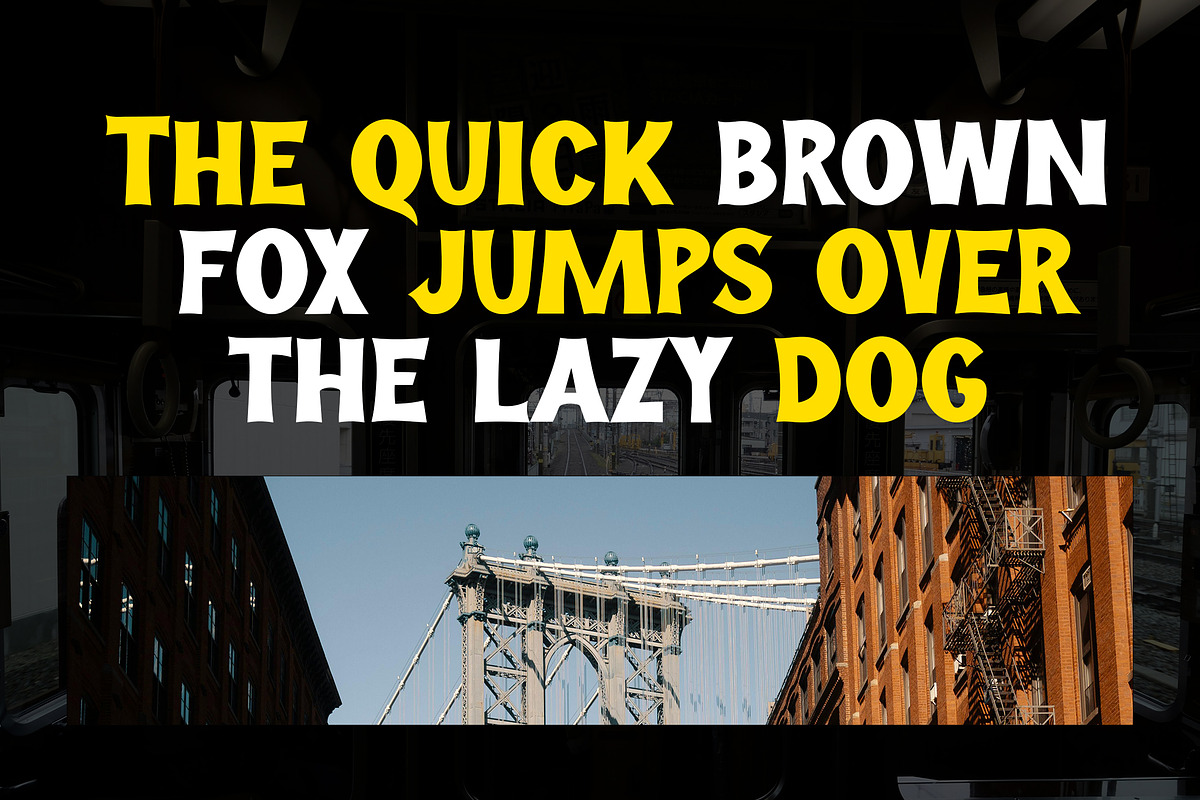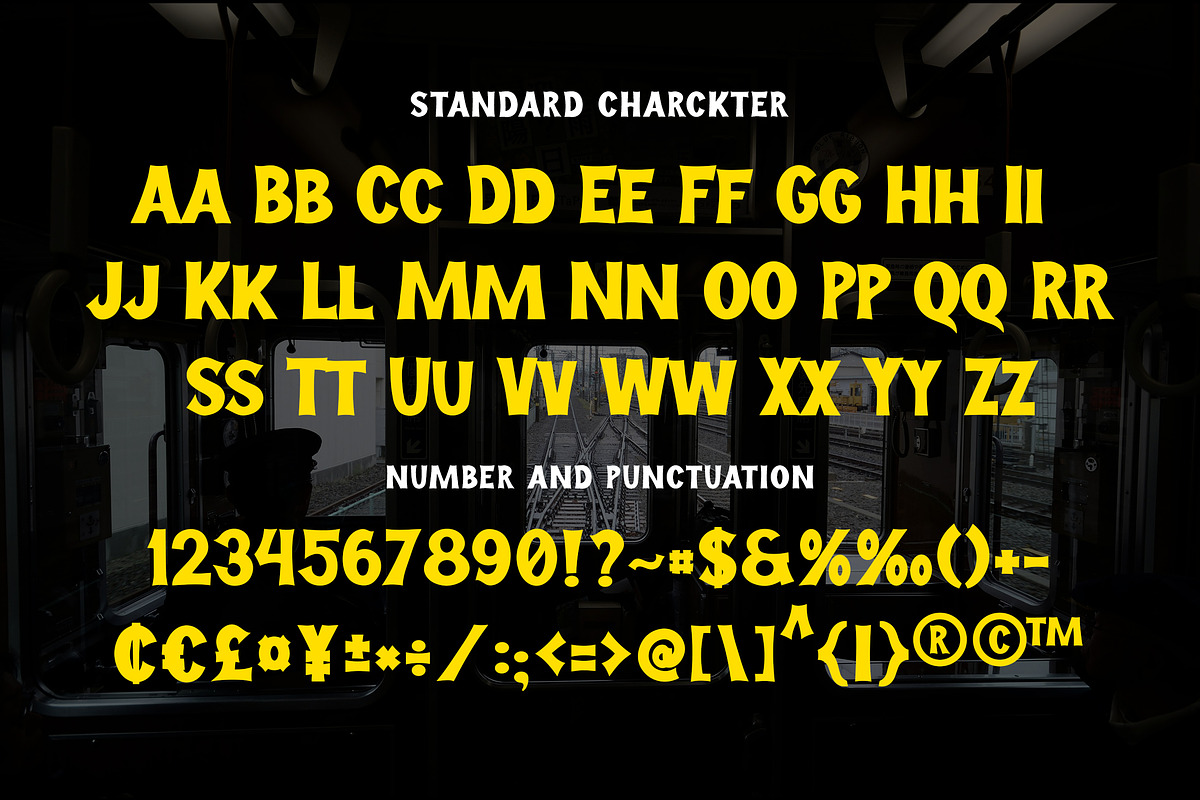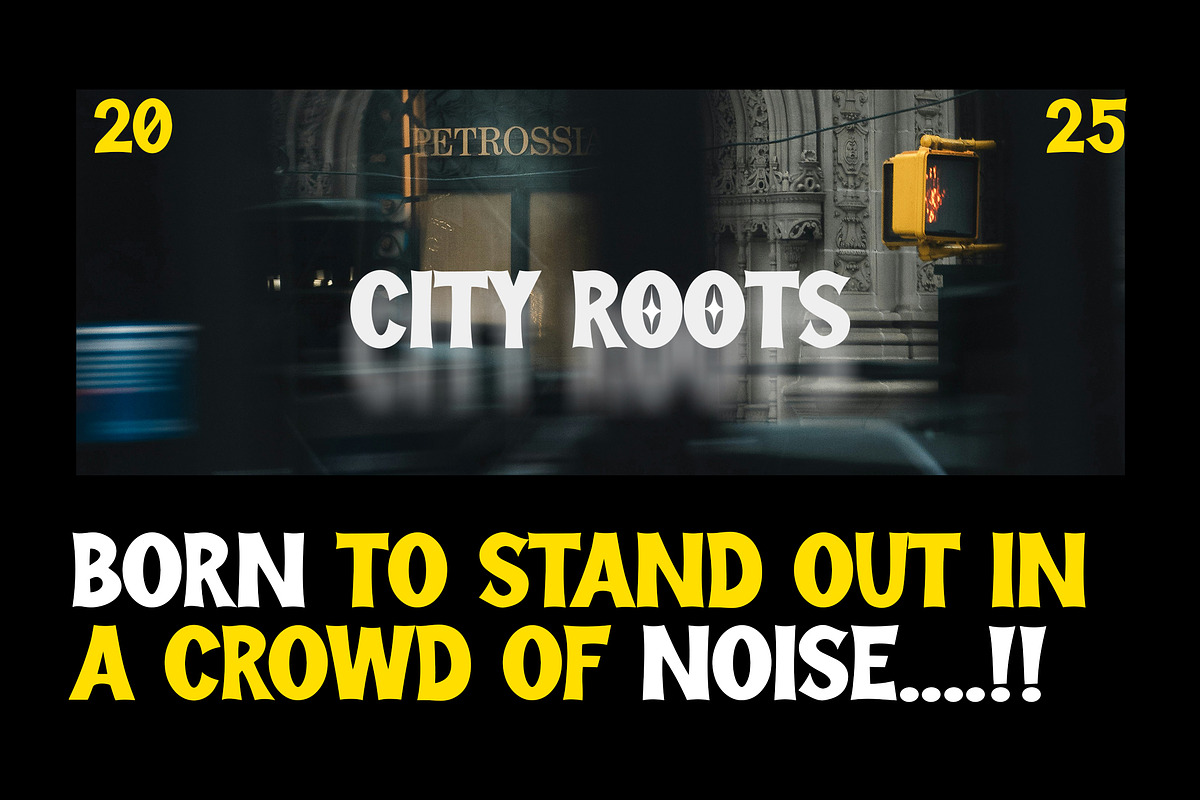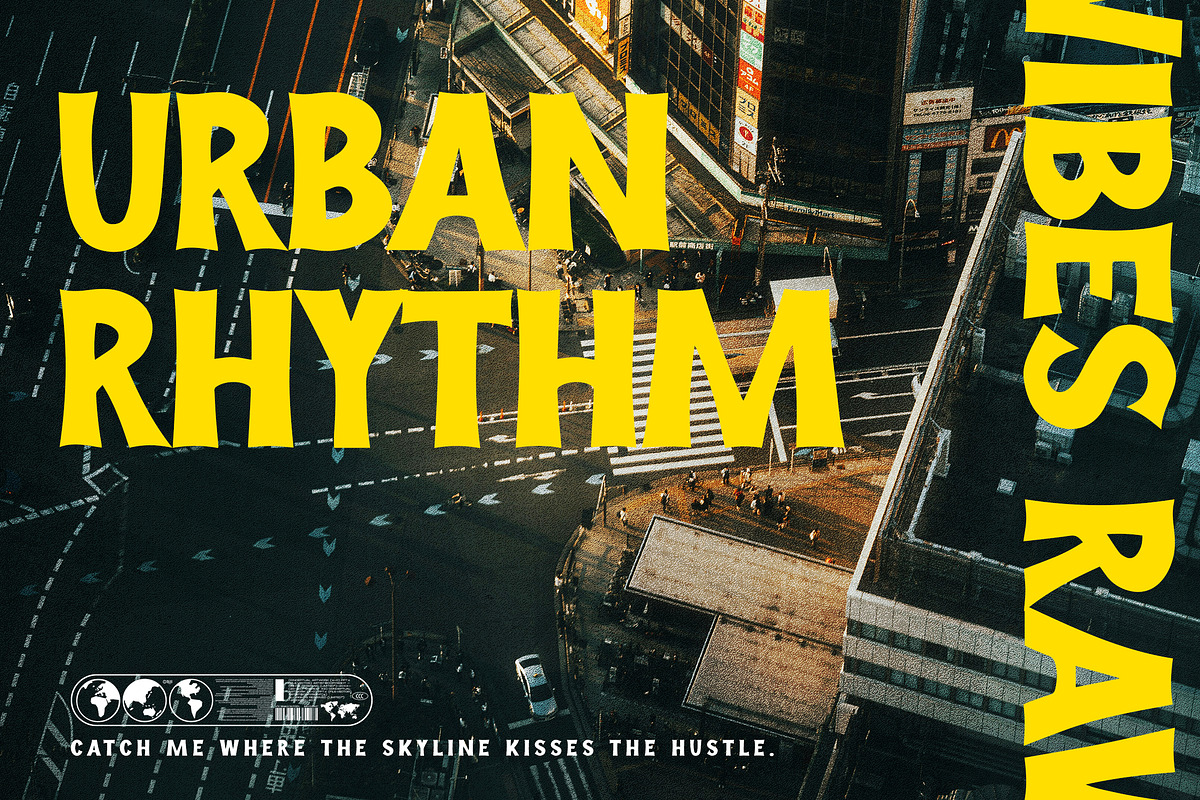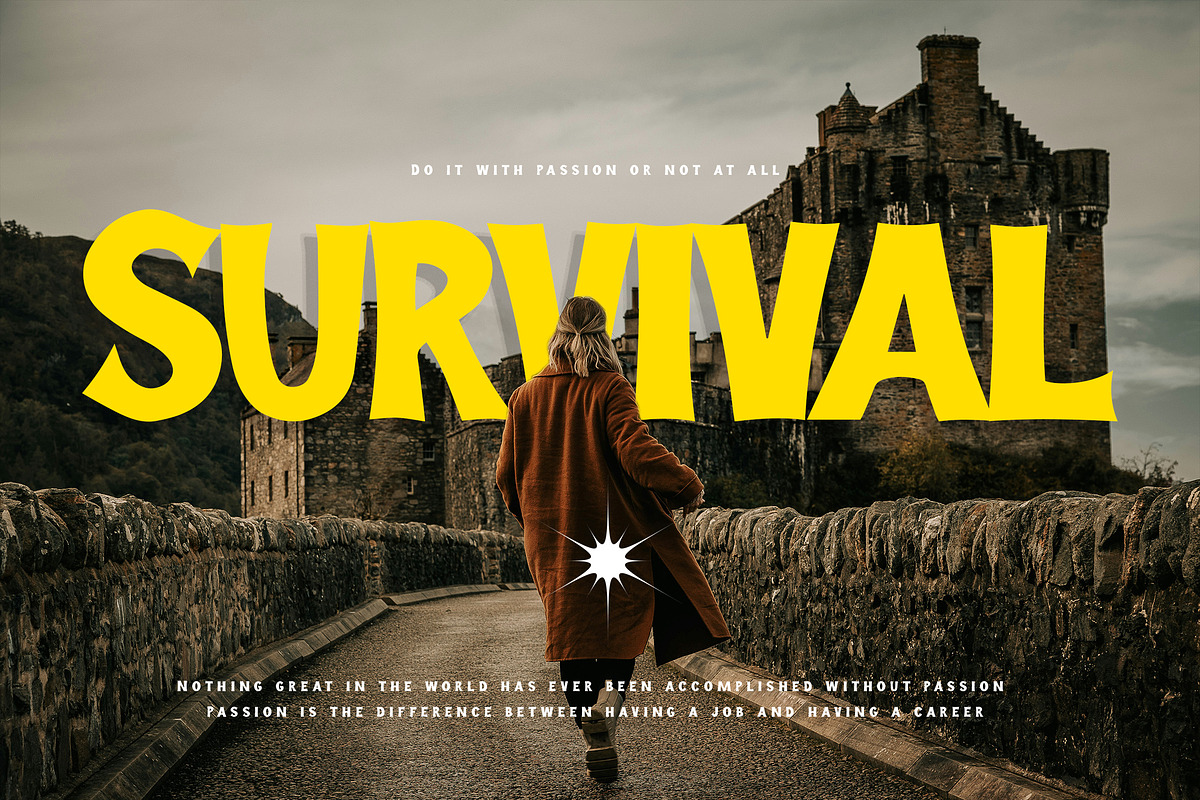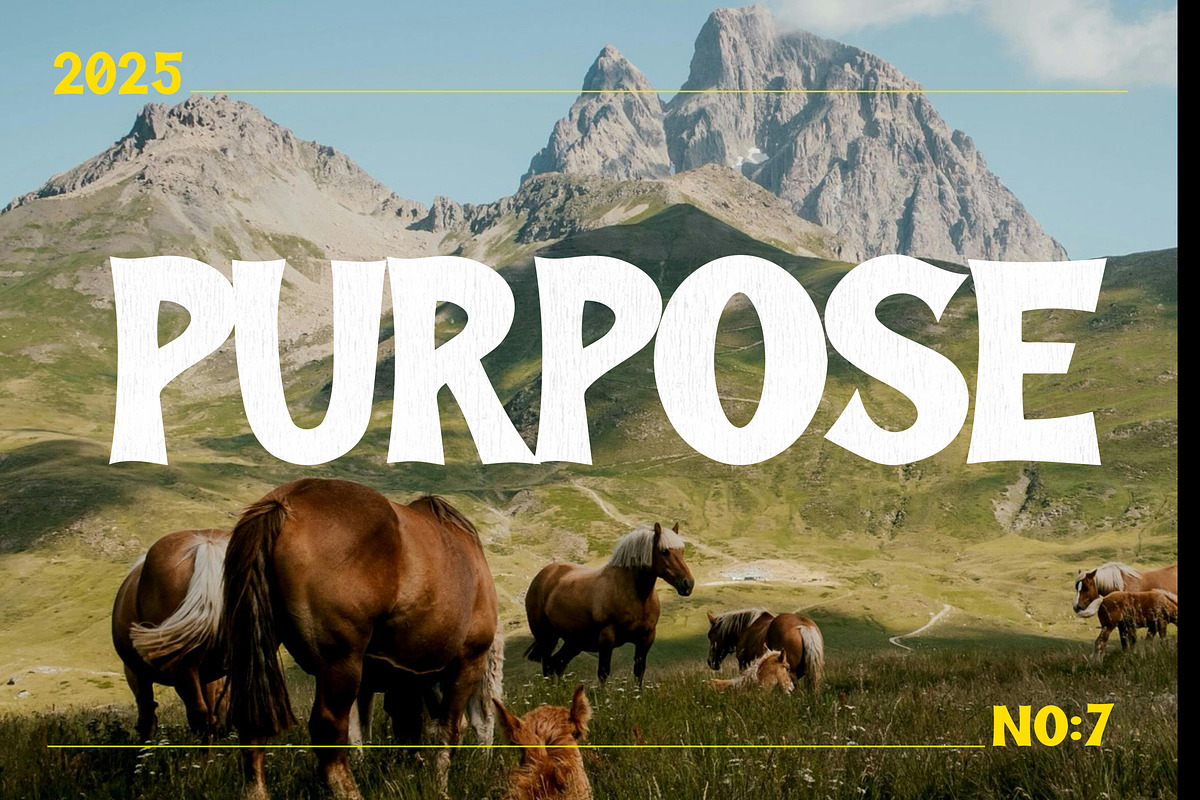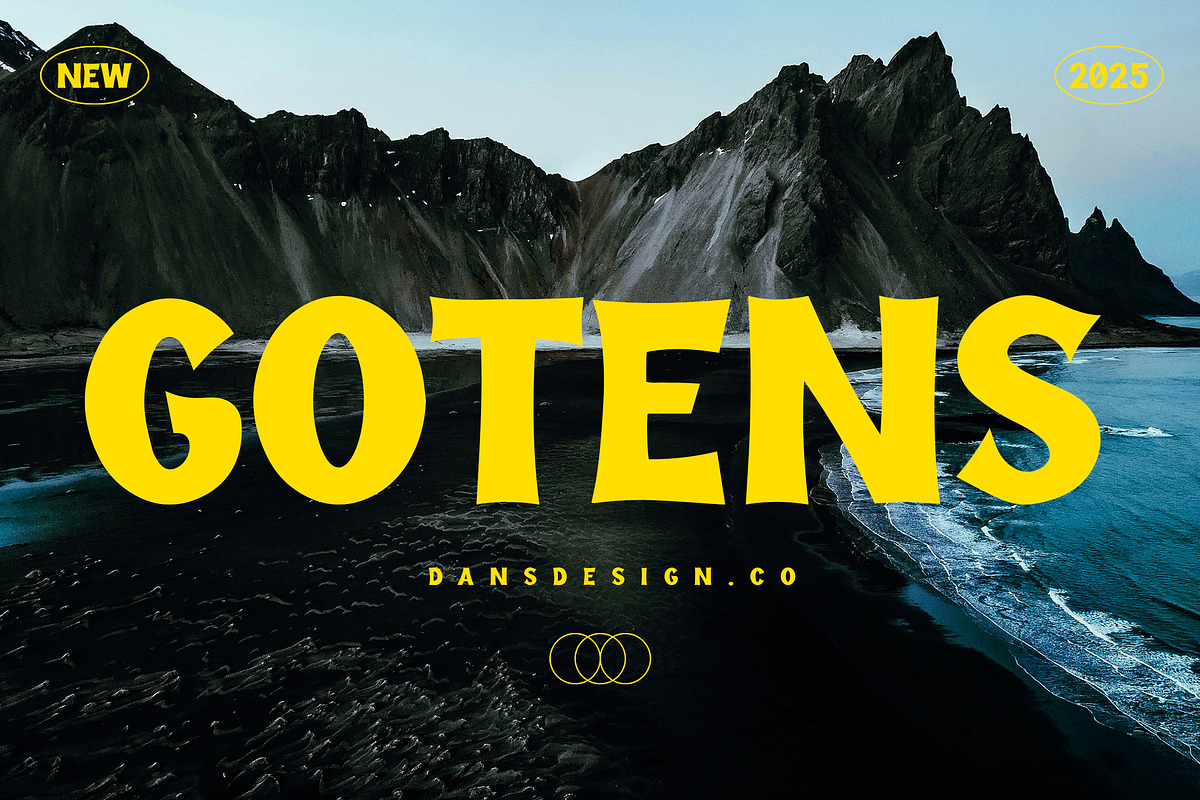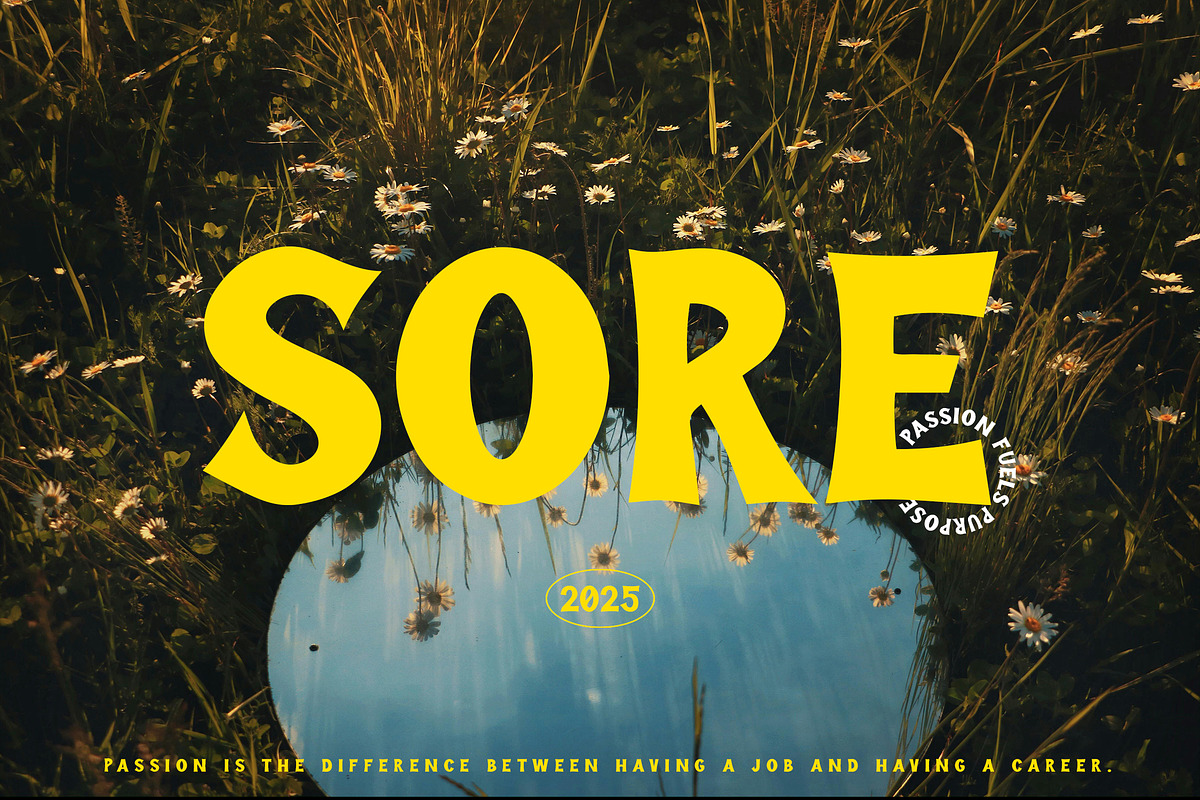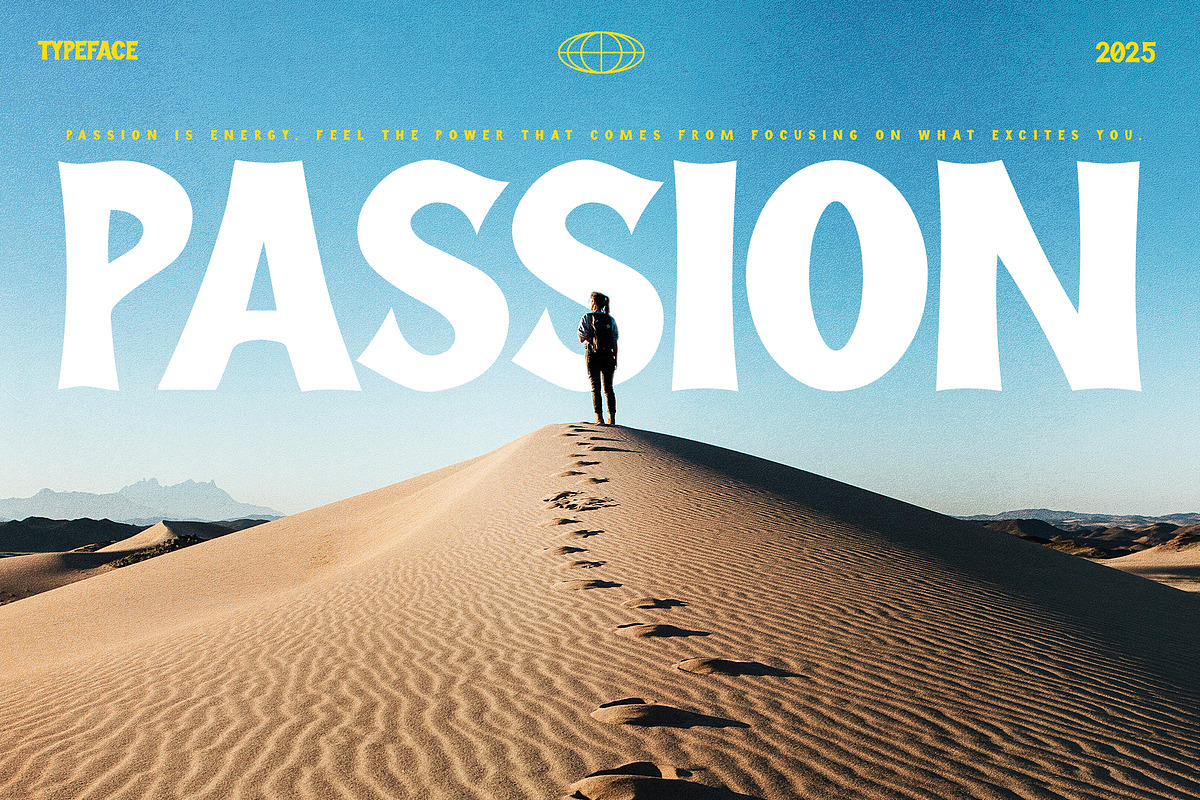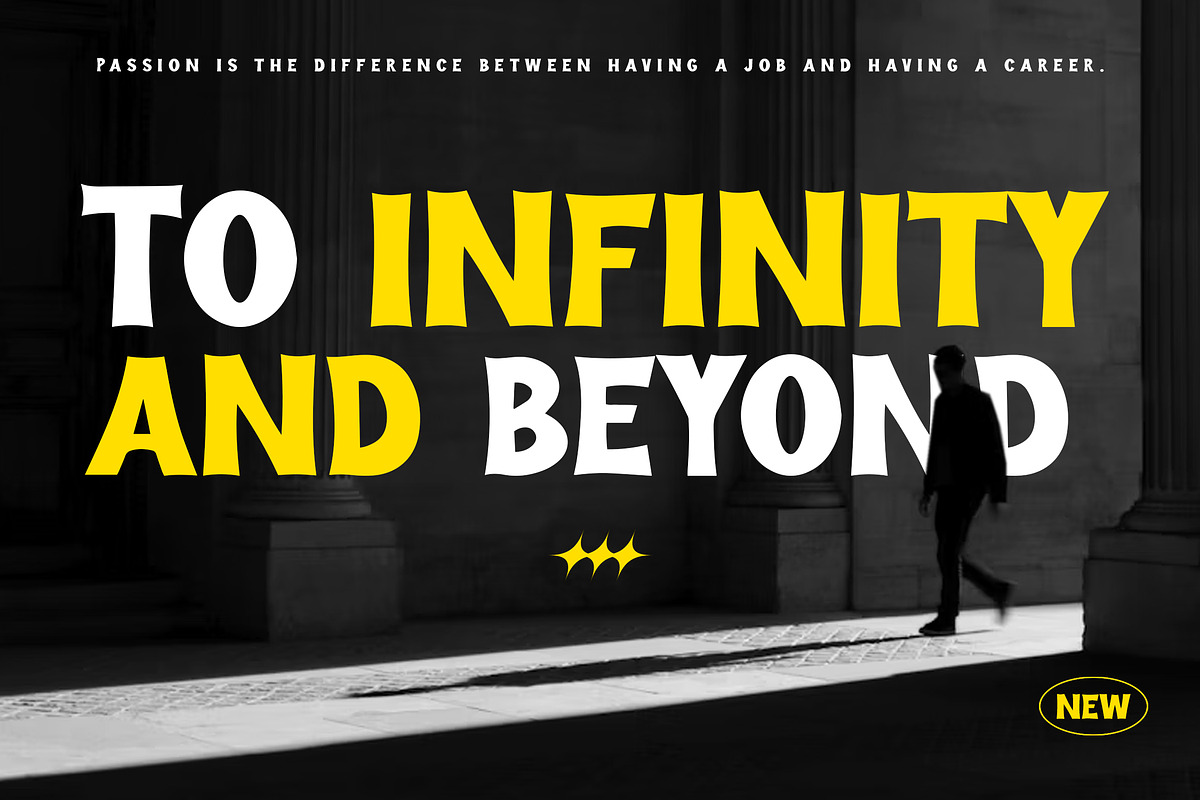
Gotens Funky Display Kids Comic Play
GOTENS – Playful Display Typeface for Comics, Kids Posters, and Fun Visual Branding
GOTENS is a bold and energetic display typeface packed with quirky personality and expressive curves. Inspired by cartoons, retro signage, and comic book lettering, it brings a sense of fun, motion, and loud creativity to every design.
Bold all-caps characters with playful forms Cartoon-inspired style with dynamic energy Full set of punctuation and symbols Multilingual support with accents Currency, math, and special characters Formats: OTF / TTF / WOFF / WOFF2
GOTENS is perfect for creators who want to deliver fun, punchy, and unforgettable visual impact.